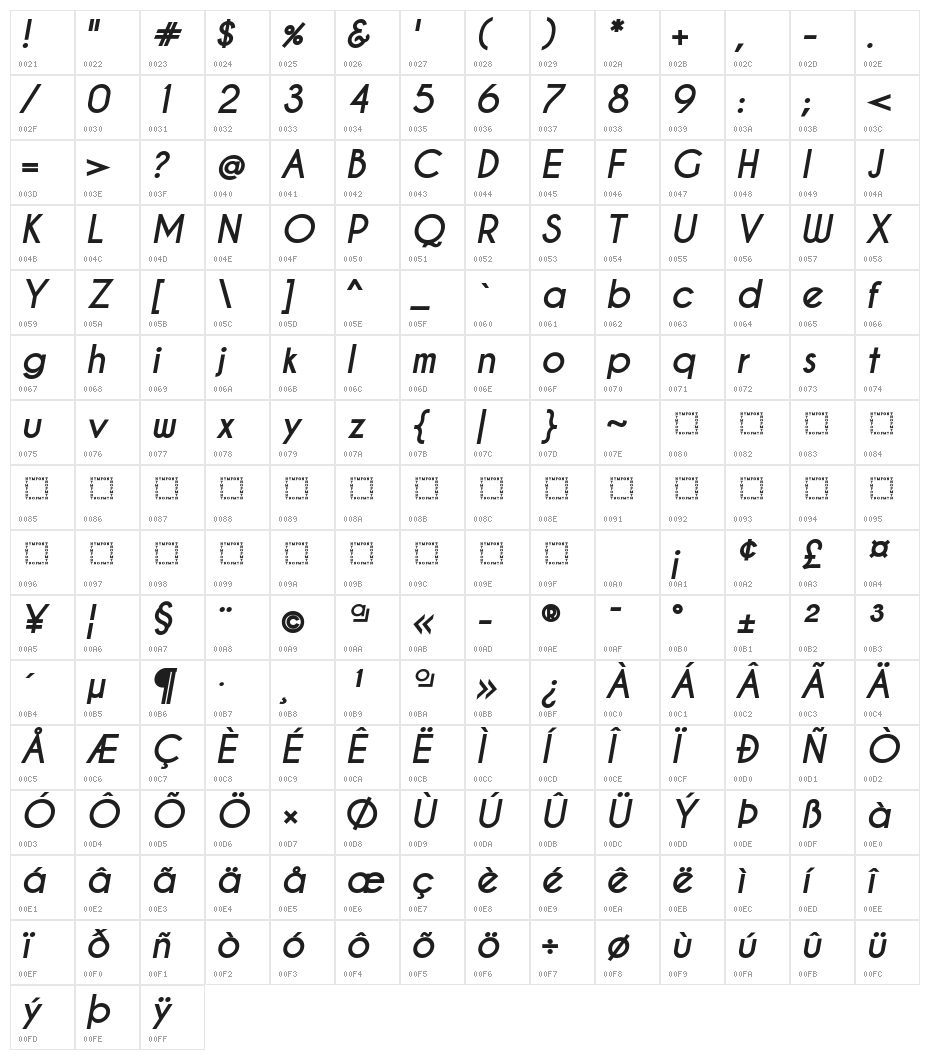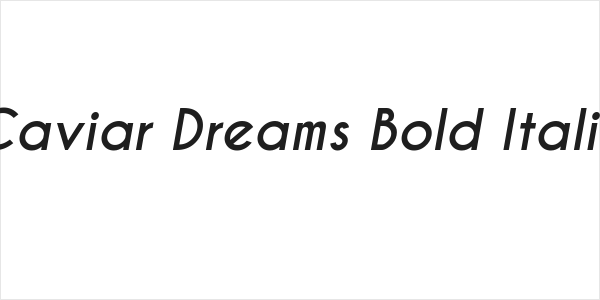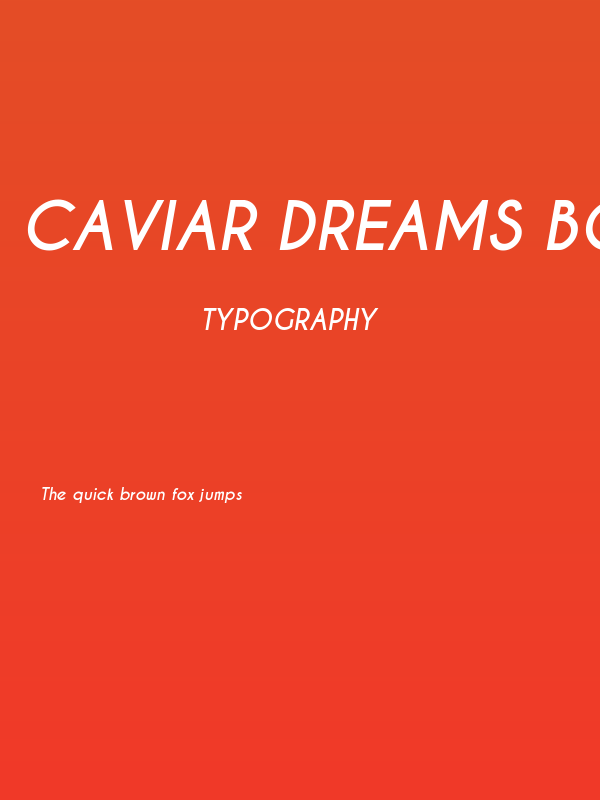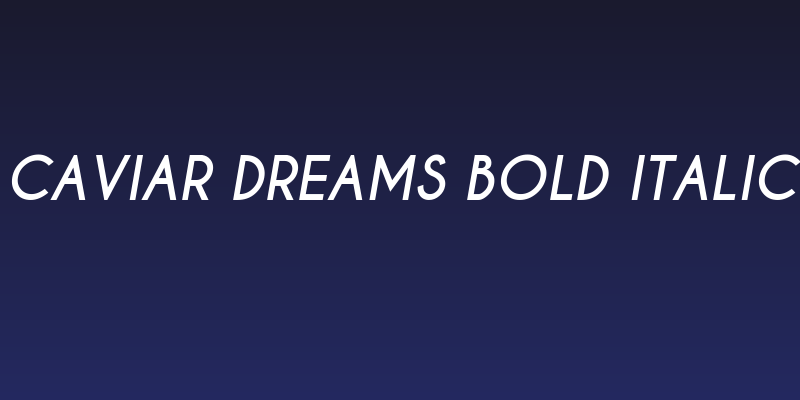
Caviar Dreams Bold Italic Font
Caviar Dreams Bold Italic Description
This font features a sleek and modern design with a bold and italicized style. The characters are slightly condensed, giving it a compact appearance while maintaining readability. The strokes are consistent in thickness, providing a uniform look across all characters. The uppercase and lowercase letters are well-proportioned, and the numerals are clear and distinct. Special characters are included, enhancing its versatility. This font's contemporary aesthetic makes it suitable for a variety of design applications.
| Use Case | Headlines, Logos, Digital Media |
| Proposed Projects | Ideal for branding, advertising, and digital media projects where a modern and bold statement is needed. |